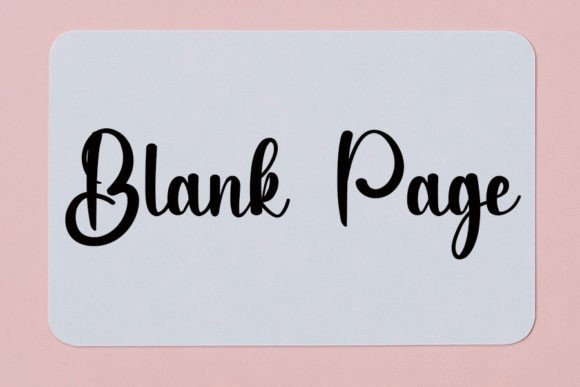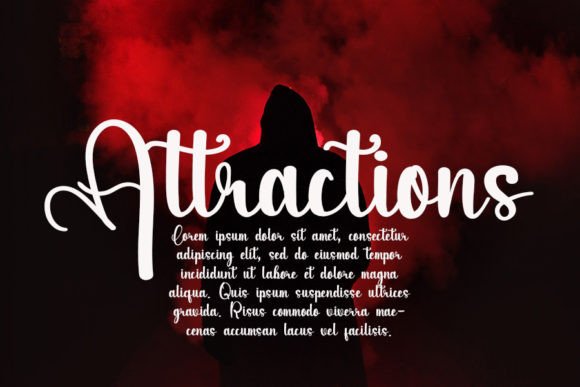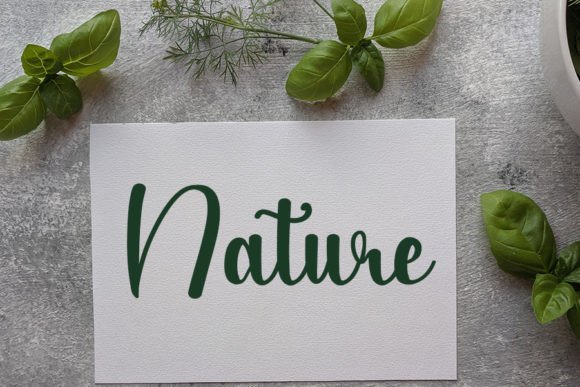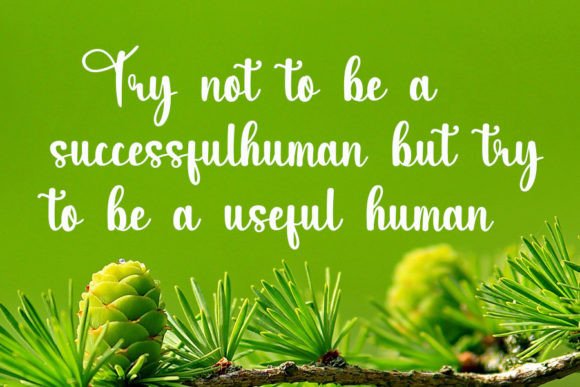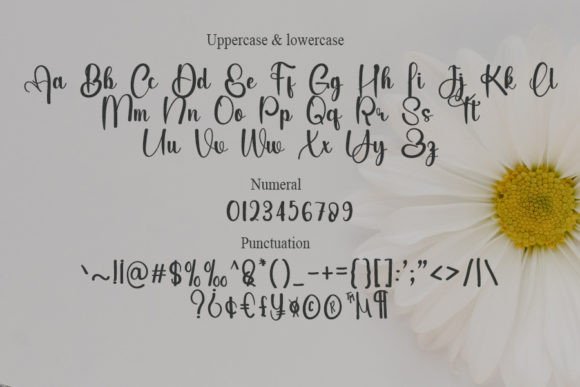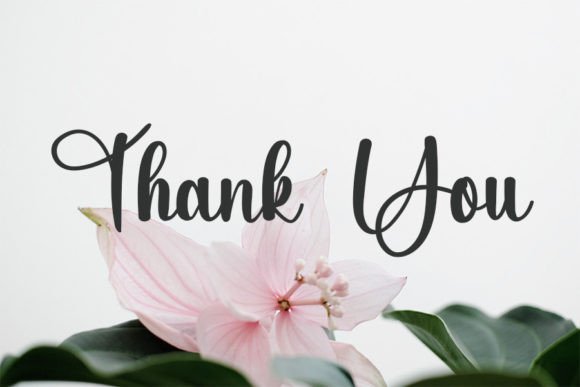
Introducing December Font: Elevate Your Designs with a Touch of Modern Elegance
Are you on the hunt for a font that adds a dash of sophistication and modern flair to your projects? Look no further than December Font, a stunning handwritten typeface that embodies the perfect blend of classic calligraphy and contemporary style. In this article, we’ll dive into the world of December Font, exploring its unique features, design inspiration, and the multitude of ways you can incorporate it into your designs.
The Inspiration Behind December Font
December Font is the brainchild of a meticulous design process aimed at creating a typeface that exudes elegance and versatility. Inspired by the timeless beauty of classic calligraphy, this font was crafted to bring a touch of refinement to any project. The designer sought to strike a balance between modernity and tradition, resulting in a font that feels both fresh and sophisticated.
Key Features of December Font
- Balanced and Varied: December Font boasts a perfectly balanced stroke width, neither too thin nor too thick. This balance ensures that your text remains legible and visually appealing across various mediums.
- Modern Vibe: With its clean lines and contemporary feel, December Font is ideal for designers looking to infuse their work with a modern edge.
- Spotless Form: The font’s spotless form enhances its readability, making it suitable for a wide range of applications, from digital platforms to print materials.
- Handwritten Elegance: Despite its modern vibe, December Font retains the charm of handwritten calligraphy, adding a personal touch to your designs.
Who Can Benefit from December Font?
December Font is a versatile typeface that can elevate a variety of design projects. Here are some of the professionals who can benefit from incorporating this font into their work:
- Graphic Designers: Whether you’re working on branding materials, posters, or digital ads, December Font can add a touch of elegance and sophistication.
- Crafters and Artists: If you’re creating handmade products, such as stationery, cards, or textiles, this font can help you achieve a professional and stylish look.
- Web Designers: December Font is perfect for web projects, including website headers, blog posts, and social media graphics, where a modern yet approachable feel is desired.
Tips for Using December Font Effectively
To make the most of December Font, consider the following tips:
- Pair with Complementary Fonts: Combine December Font with simpler sans-serif fonts for body text to create visual hierarchy and contrast.
- Experiment with Colors: While December Font looks stunning in black, don’t be afraid to experiment with colors that match your brand’s palette.
- Adjust Letter Spacing: For headings, consider tightening letter spacing to create a more compact, impactful look.
December Font is a remarkable addition to any designer’s toolkit, offering a perfect blend of modern elegance and classic charm. Its versatility, readability, and aesthetic appeal make it an excellent choice for a wide range of projects. Whether you’re a seasoned professional or a crafty hobbyist, December Font is sure to elevate your designs and leave a lasting impression on your audience.